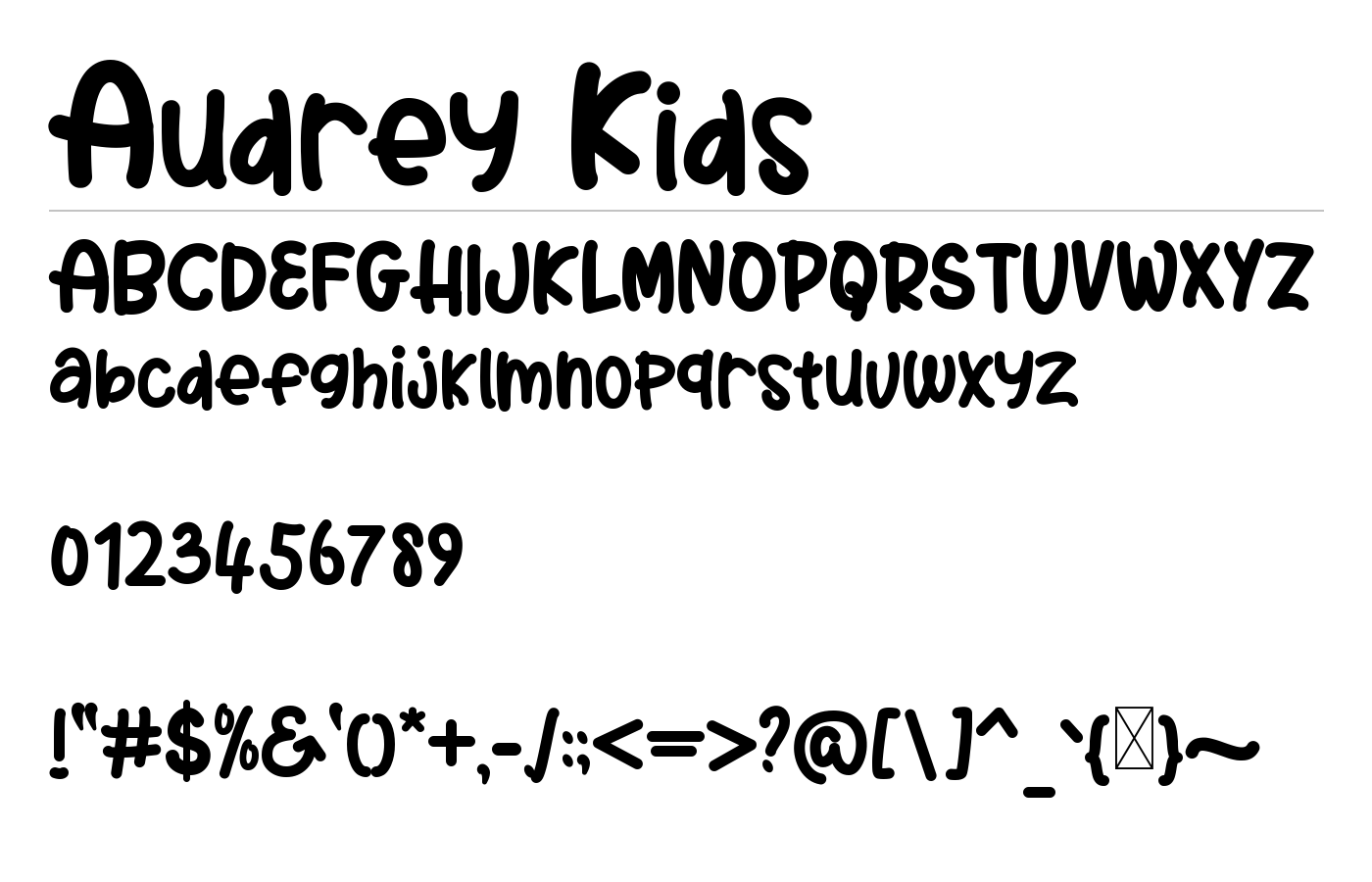
Audrey Kids is a playful and friendly sans serif font with a casual, handwritten style that feels approachable and fun. Its rounded, slightly uneven strokes and moderate weight give it a lively, childlike energy, making it ideal for kids' books, educational materials, and informal branding. This font works well in headlines and short text where a warm, youthful tone is desired.
Audrey Kids Font
About Audrey Kids Font